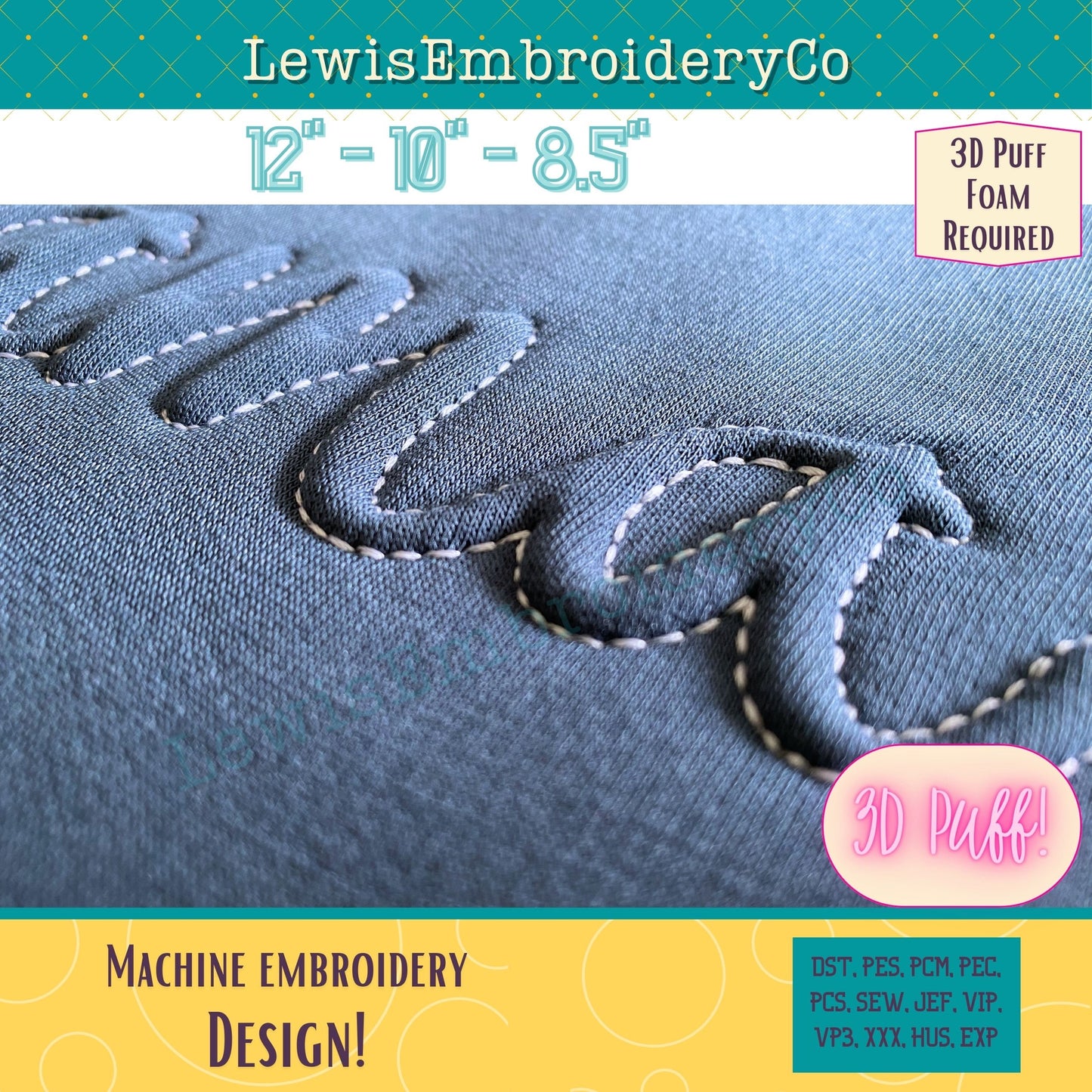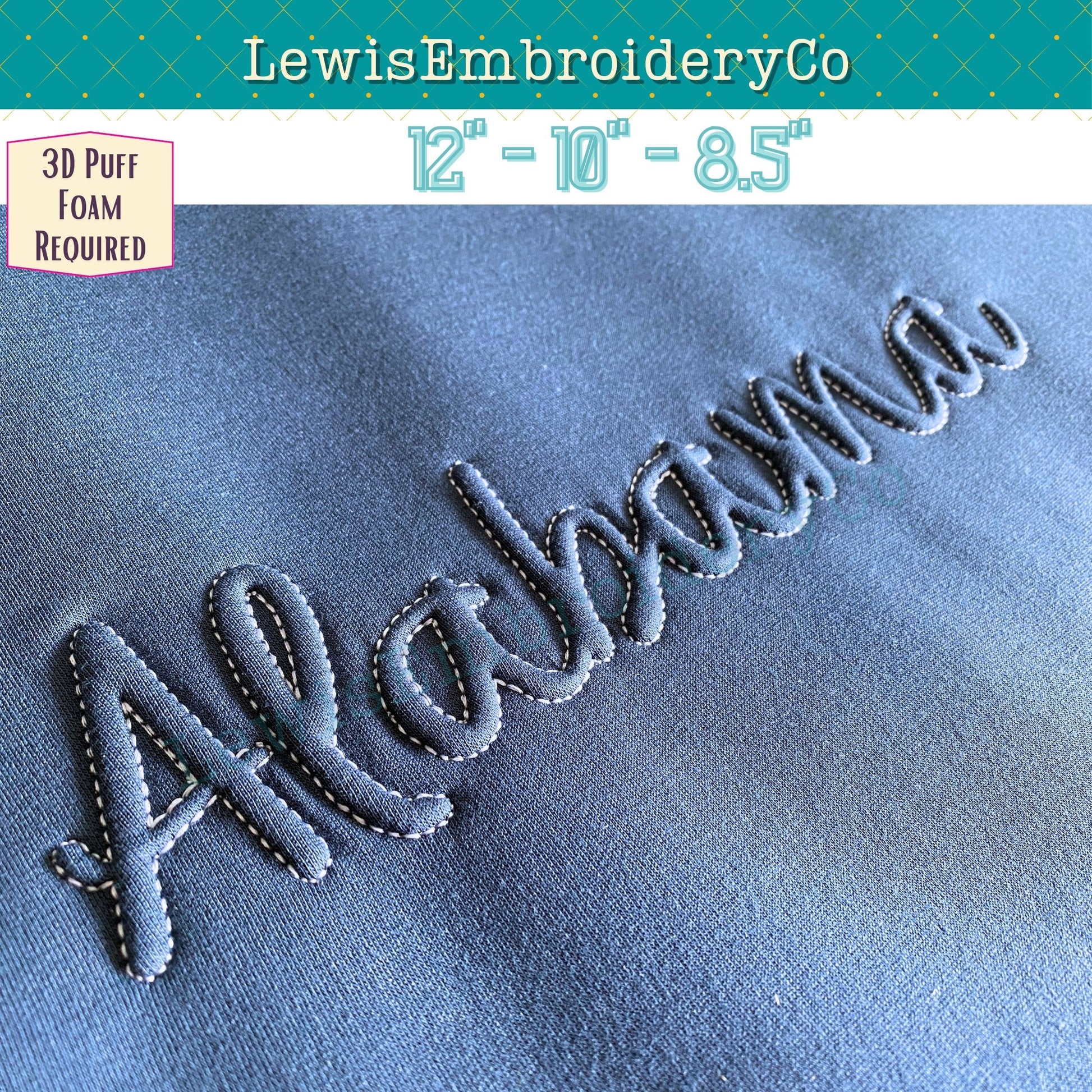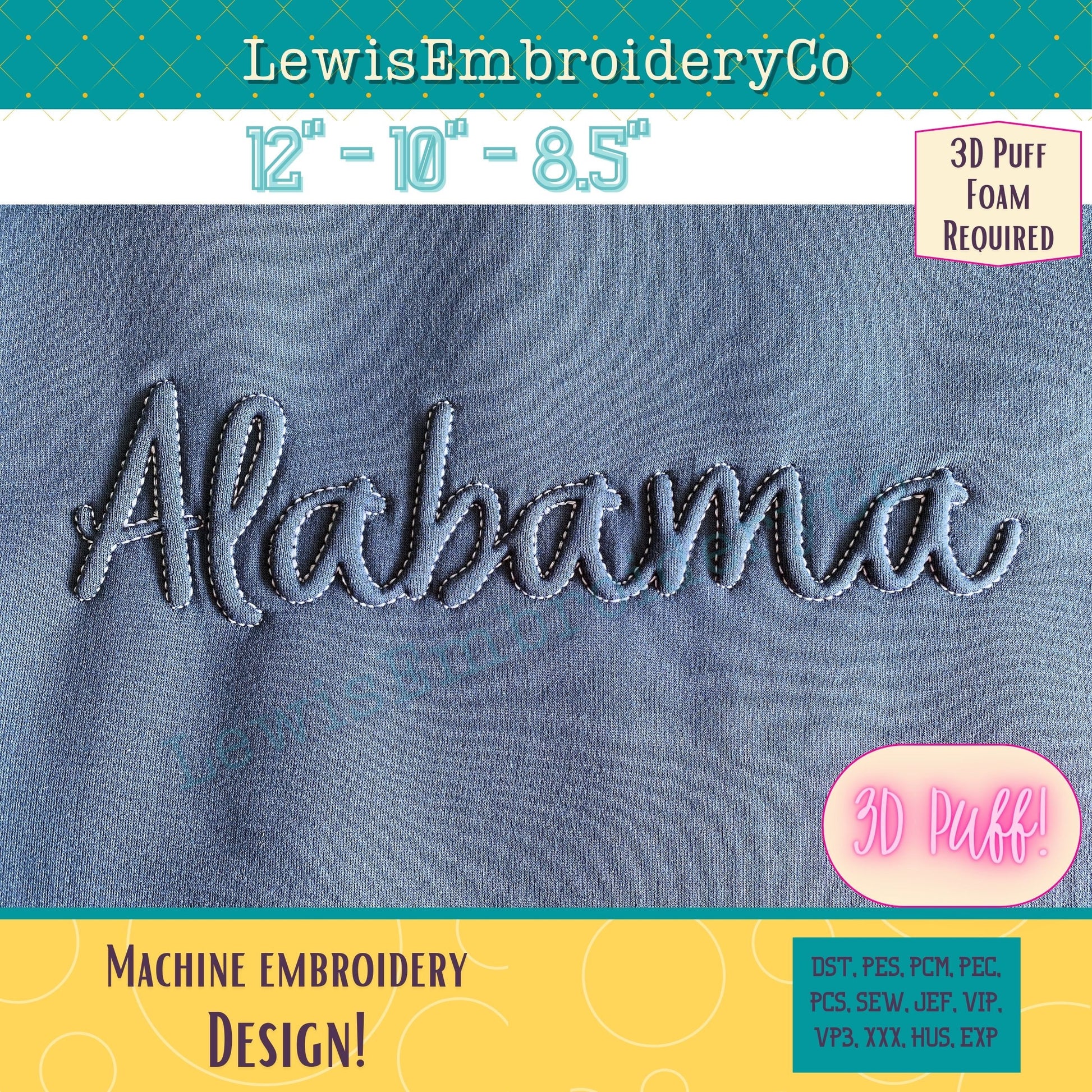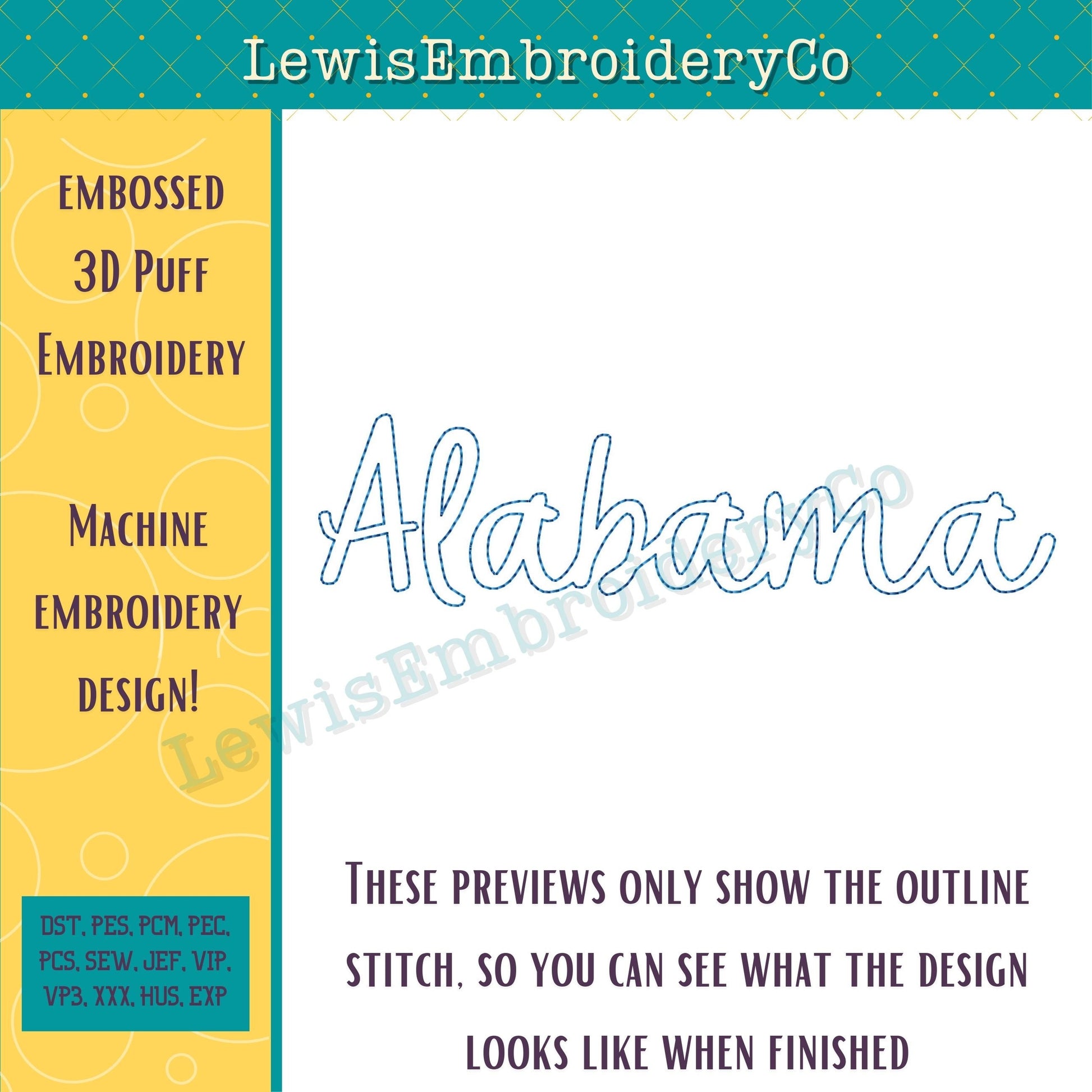
ALABAMA Embossed 3D Puff, Machine Embroidery Design - NOT Full Font (PDF Tutorial Included)
Alabama Embossed 3D Puff Design - Script Embroidery Font - Puff Foam Embroidery - State Embroidery Design - State Sweatshirt Embroidery